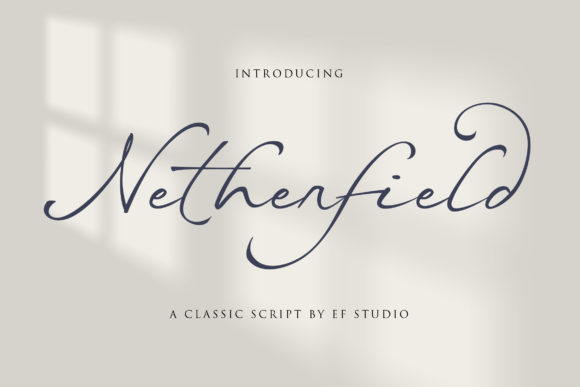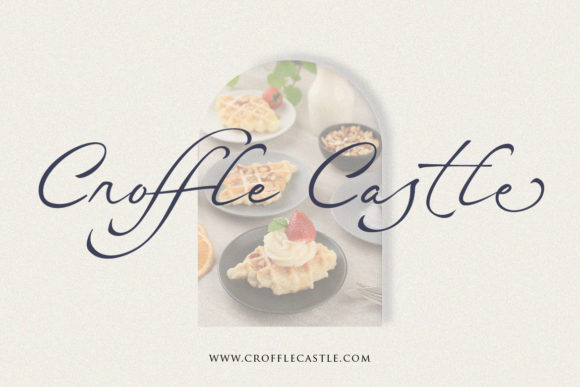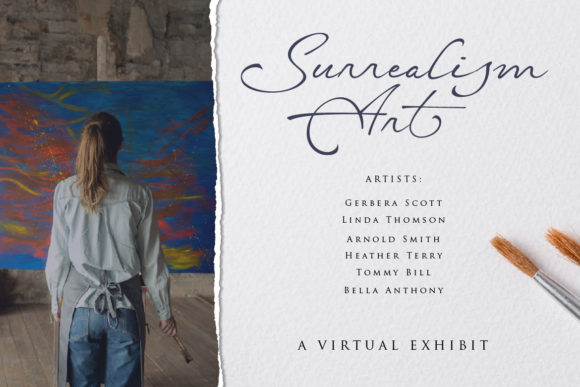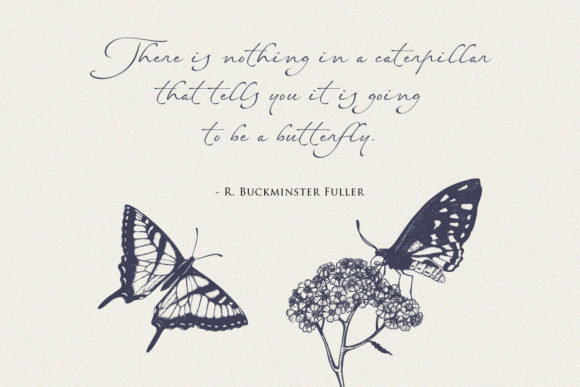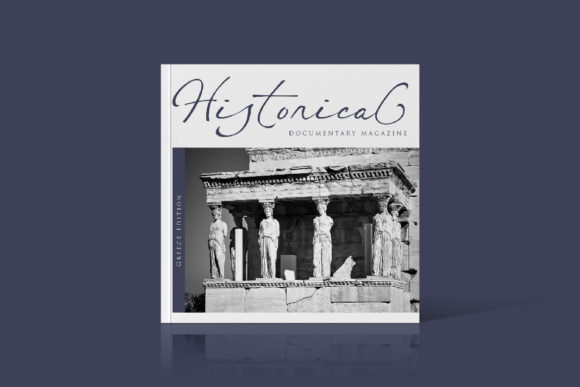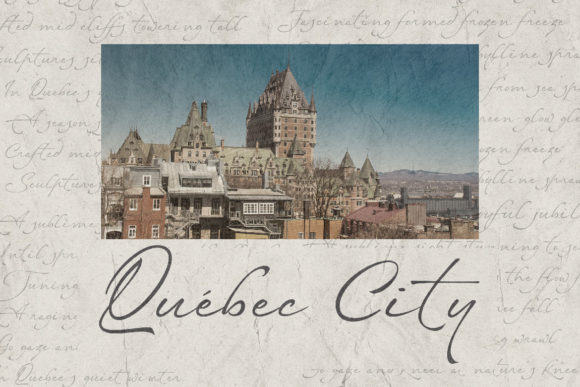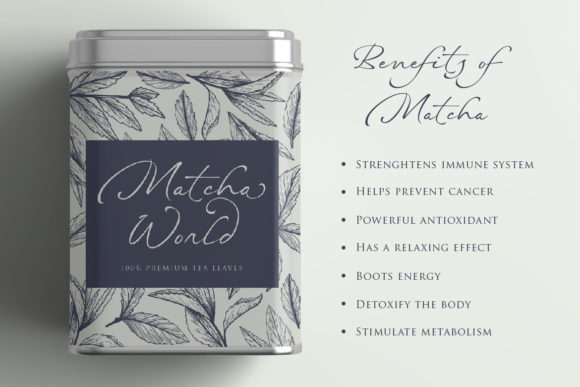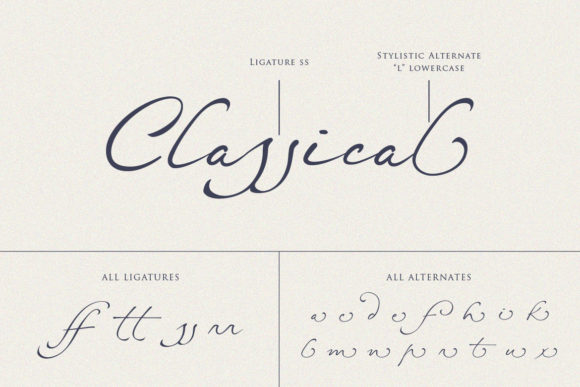
Netherfield Font
Netherfield feels incredibly elegant and flowing. It looks stunning on wedding invitations, thank you cards, quotes, greeting cards, logos, business cards and every other design which needs a handwritten touch.